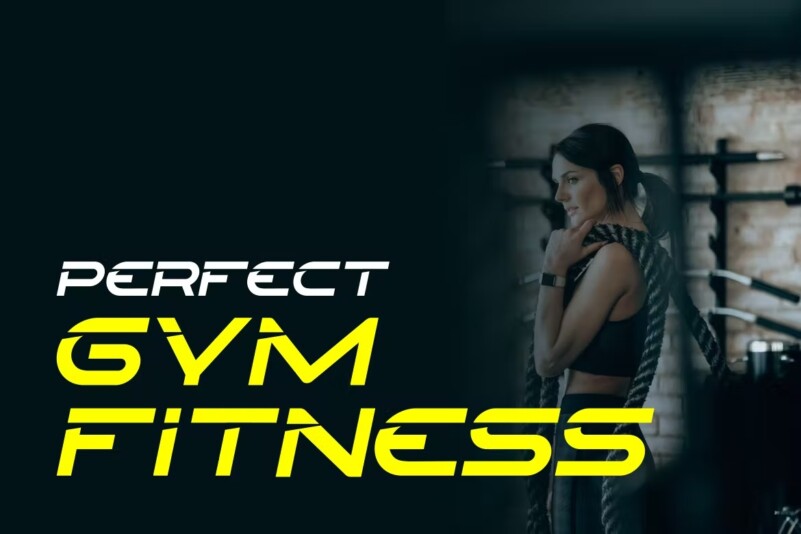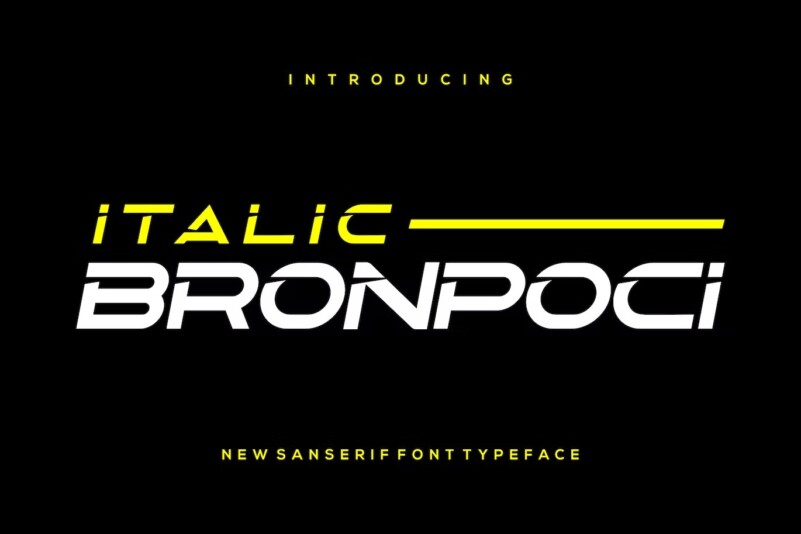
Italic bronpoci – italic fonts
The modern Italic font, Bronpoci-Italic Fonts is a bold and authentic display font. The font is suitable for any branding project such as logo, t-shirt print, e-sport, etc. Exceptional in a wide range of contexts.